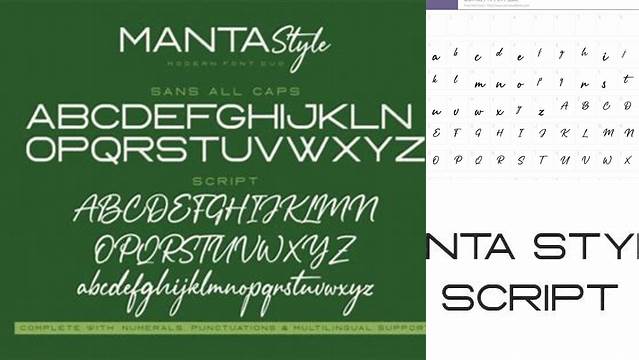
Manta Script Font: Free Demo Download Guide
Hey guys! Ever stumbled upon a font that just clicks? Manta Script might just be that font for you. It’s got this super cool, flowing style that can add a touch of elegance and personality to your designs. Whether you're crafting a logo, designing invitations, or jazzing up your website, a great font makes all the difference. And who doesn't love free stuff, right? This guide will walk you through everything you need to know about the Manta Script demo font and how to snag it for your projects. So, let's dive in and explore the wonderful world of Manta Script!
1. What is Manta Script Font?
Manta Script font is a beautifully crafted typeface that falls into the category of script fonts. Its defining characteristic is its flowing, handwritten style, which gives it a natural and elegant look. Think of the kind of signature you'd see on a fancy invitation – that's the vibe Manta Script gives off. Script fonts like Manta Script are often used to convey a sense of sophistication, warmth, and personal touch. This makes them incredibly versatile for a range of design applications. The unique charm of Manta Script lies in its smooth curves and delicate strokes, making it instantly recognizable and appealing. The font designers put a lot of effort into making sure it looks as natural and authentic as possible, mimicking the flow of real handwriting. Whether you're working on a branding project, creating wedding invitations, or designing social media graphics, Manta Script can bring a touch of class and personality to your work.
2. Key Features of Manta Script Font
The Manta Script font isn't just another pretty typeface; it comes packed with features that make it a designer's dream. First and foremost, its flowing script style is a standout, offering a natural and elegant aesthetic. This makes it perfect for projects where you want to convey a sense of sophistication and personal touch. But what else makes Manta Script special? Well, many versions of the font include a variety of stylistic alternates. These are different versions of the same letter, allowing you to mix and match to achieve the perfect look. Imagine being able to swap out a 't' for a more flourished version or choose a different ending for an 's' – it's like having multiple fonts in one! Beyond alternates, Manta Script often includes ligatures. Ligatures are special characters that combine two or more letters into a single, more fluid glyph. This can create a smoother, more connected appearance in your text, especially in longer words. Finally, the font often supports multiple languages, with a wide range of characters and symbols, making it a versatile choice for international projects. All these features combined make Manta Script a powerful tool in any designer's arsenal.
3. Why Choose Manta Script for Your Projects?
Choosing the right font is crucial, and Manta Script could be the perfect fit for several reasons. First off, its elegant and flowing style adds a touch of sophistication to any project. If you’re aiming for a look that’s classy and refined, Manta Script is a solid choice. Think about using it for wedding invitations, luxury branding, or high-end product packaging. The font's handwritten feel brings a personal touch, making your designs feel more human and approachable. This is especially useful for projects where you want to connect with your audience on an emotional level, like thank-you cards, personalized gifts, or heartfelt messages. Beyond aesthetics, Manta Script offers great readability for a script font. Some script fonts can be overly ornate, making them difficult to read, but Manta Script strikes a balance between style and clarity. Its clean lines and well-formed characters ensure that your message gets across without sacrificing visual appeal. Plus, with its range of stylistic alternates and ligatures, you can customize the font to suit your specific needs, ensuring your design stands out. Overall, Manta Script offers a blend of elegance, personality, and practicality, making it a fantastic addition to your font library.
4. Manta Script Font Demo: What’s Included?